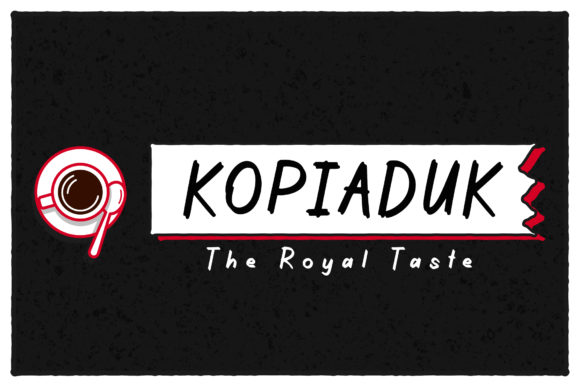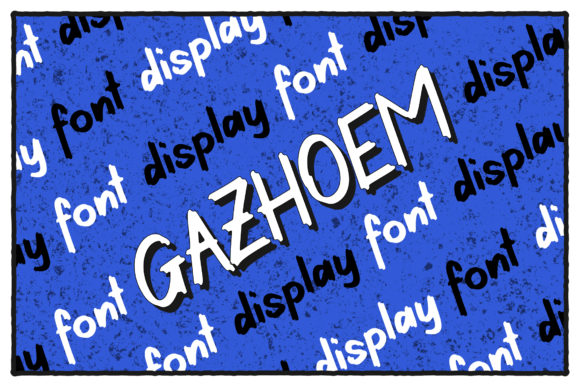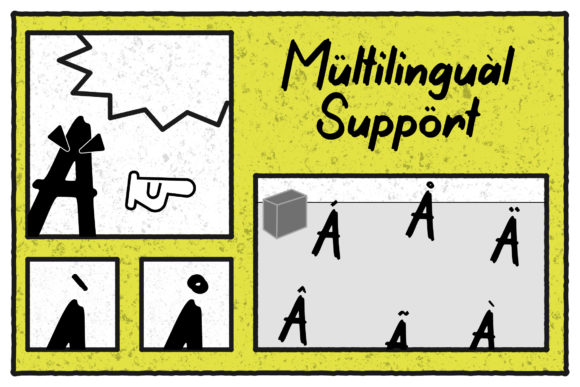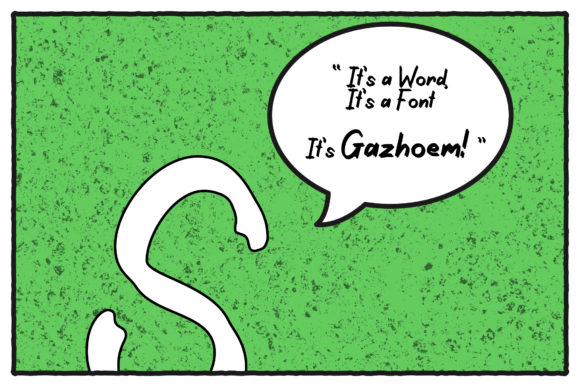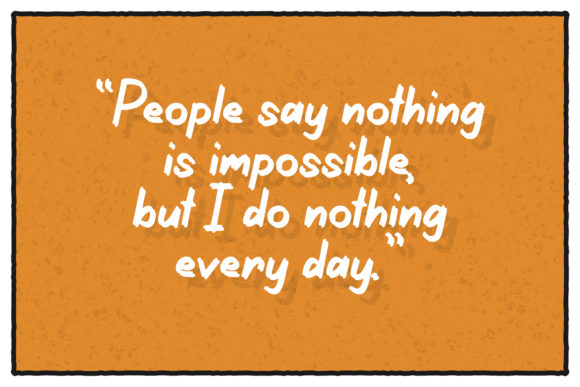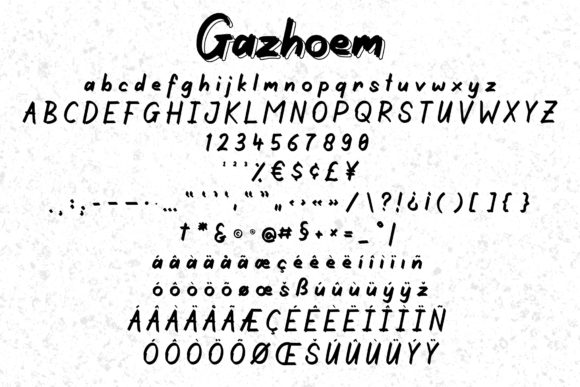
Introduction to Gazhoem Font
You know that moment when you’re brainstorming ideas for your next creative project, and everything just clicks? The perfect combination of colors, textures, and fonts comes together, and you can almost see your vision taking shape. For many designers, this moment is the highlight of the creative process – and it’s even more special when the right font is involved. One such gem is the Gazhoem Font, a stunning display font that results from the perfect pairing of a brush pen and pencil.
This unique font is a design resource that can elevate any DIY project, bringing an authentic and endearing touch to your work. With its transparent background and high-quality design, Gazhoem Font is a valuable asset for designers looking to add a personal touch to their creations.
Key Features of Gazhoem Font
- High-Quality Design: Gazhoem Font is a premium design resource perfect for creative projects, offering a unique and stylish aesthetic.
- Transparent Background: This font features a transparent background, allowing for easy layering and manipulation in various design applications.
- Unique Characteristics: This font features a distinctive, hand-drawn style with intricate details, setting it apart from other design resources.
- Perfect for Creative Projects: Gazhoem Font is ideal for use in branding, advertising, and editorial design, adding a touch of elegance and sophistication to any project.
Honest Review: Gazhoem Font
I recently had the chance to work with the Gazhoem Font, and I must say it’s been a game-changer for my creative projects. The high quality of this font is instantly noticeable, and it’s been a joy to incorporate it into my designs.
- ✨ The unique, elegant design of the font makes it perfect for any project that requires a touch of sophistication.
- ✨ The transparent background allows for seamless integration into any design, making it a versatile design resource.
- ⚠️ The font may not be suitable for all types of projects, particularly those that require a bold, attention-grabbing font.
- ⚠️ Some users may experience difficulties with font pairing due to its unique design.
Overall, I’m thoroughly impressed with the Gazhoem Font. Its high quality, elegant design, and free download option make it an excellent addition to any designer’s toolkit. While it may not be suitable for all projects, I highly recommend giving it a try for your next creative endeavor.
Common Use Cases for Gazhoem Font
Gazhoem Font is perfect for creating eye-catching graphics, logos, and typography-based designs. It’s also great for adding a creative touch to presentations, documents, and websites. With its transparent background and high-quality design, Gazhoem Font is a versatile design resource that can be used in a variety of projects.